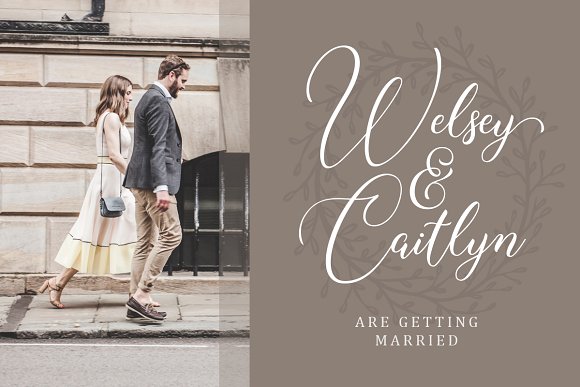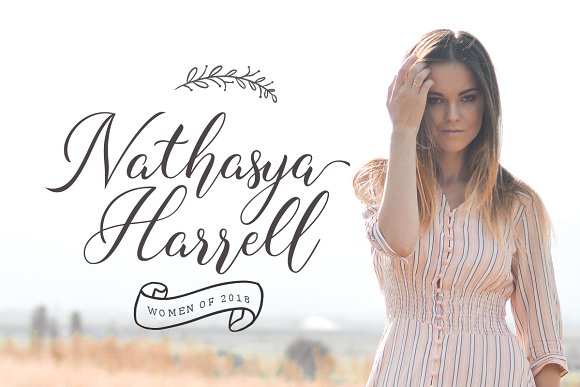
Roseville Script Font
A new fresh handmade calligraphy font. This font is ideal for branding and decorate your any project. Introducing Roseville Font. Roseville – a lovely modern script that bring luxury feel. The natural hand writing script is suitable for you who needs a typeface for headline. Very suitable for greeting cards, branding materials, business cards, quotes, posters, and more! This font are perfect for wedding postcard. Or you can create perfect and unique design of your logo, blog, stationery, marketing, magazines and more 🙂